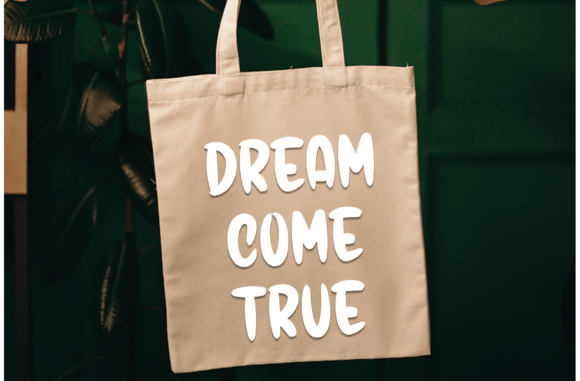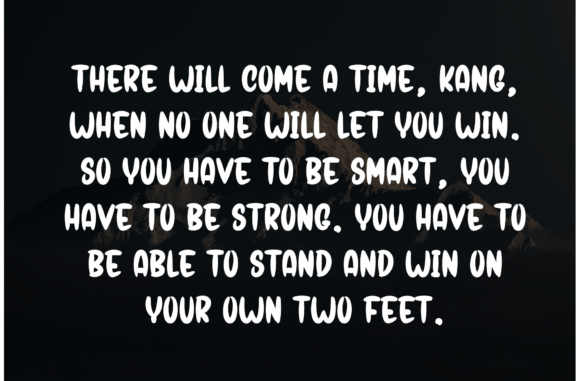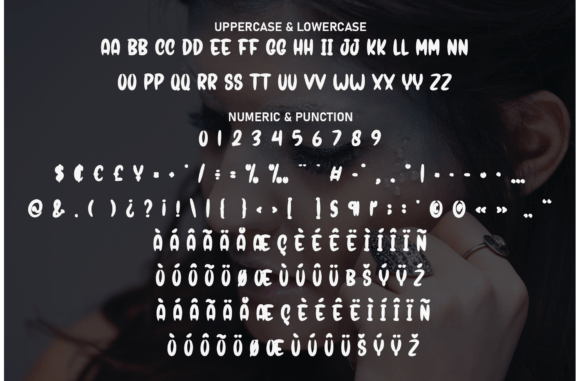
Introduction to Mystical Dimples Font
As a designer, there’s nothing quite like the thrill of discovering a new font that perfectly captures the essence of your creative vision. For me, it was the moment I stumbled upon the Mystical Dimples Font – a font that exudes warmth and approachability, making it an instant favorite for any design project.
With its clean lines, balanced letterforms, and subtle rounded edges, the Mystical Dimples Font is a true gem for designers seeking a high-quality design resource. Whether you’re working on a branding project, crafting a headline, or designing packaging, this font is sure to add a touch of sophistication and charm to your work. And the best part? It’s available for free download, making it an invaluable asset for any creative project.
As we delve into the world of the Mystical Dimples Font, you’ll discover why it’s become a go-to choice for designers worldwide. From its crisp structure to its versatile style, this font delivers clarity and charm in equal measure – making it an absolute must-have for any design arsenal.
Key Features of Mystical Dimples Font
- Unique, hand-drawn design with a whimsical touch, perfect for creative projects.
- Perfect for adding a touch of magic to your design, with its playful and mystical vibe.
Honest Review: Mystical Dimples Font
I recently had the chance to work with the Mystical Dimples Font, and I must say, it’s been a delightful experience. As a designer, I’m always on the lookout for high-quality design resources that can elevate my creative projects. The Mystical Dimples Font definitely delivers.
What works well: ✨ The font is incredibly versatile and can be used for a variety of projects, from whimsical illustrations to elegant typography. The designers have done a great job in creating a font that’s both playful and sophisticated. I also appreciate the transparent background, which makes it easy to customize and integrate into my designs.
What doesn’t work well: ⚠️ While the font is high quality, I did encounter some limitations. For example, the font only includes a limited number of weights and styles, which can be restrictive for some projects. Additionally, the free download option is limited to a basic version of the font, with some features only available in the paid version.
Overall, I’m impressed with the Mystical Dimples Font, and I would definitely recommend it to fellow designers. It’s a great resource to have in your toolkit, and I’m sure it will come in handy for many creative projects. Just be aware of the limitations, and you’ll be all set!
The Mystical Dimples Font is a high-quality design resource ideal for creative projects. It features a unique, mystical design with transparent background, making it perfect for overlaying on images or videos.
The Mystical Dimples Font is ideal for a variety of creative projects, including: social media graphics, posters, flyers, and digital art. Its unique design and transparent background make it perfect for adding a touch of mysticism to your designs.